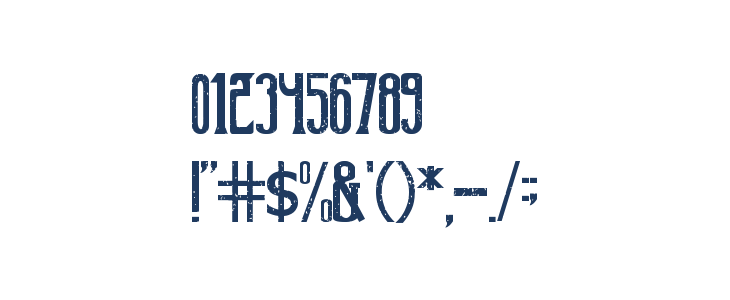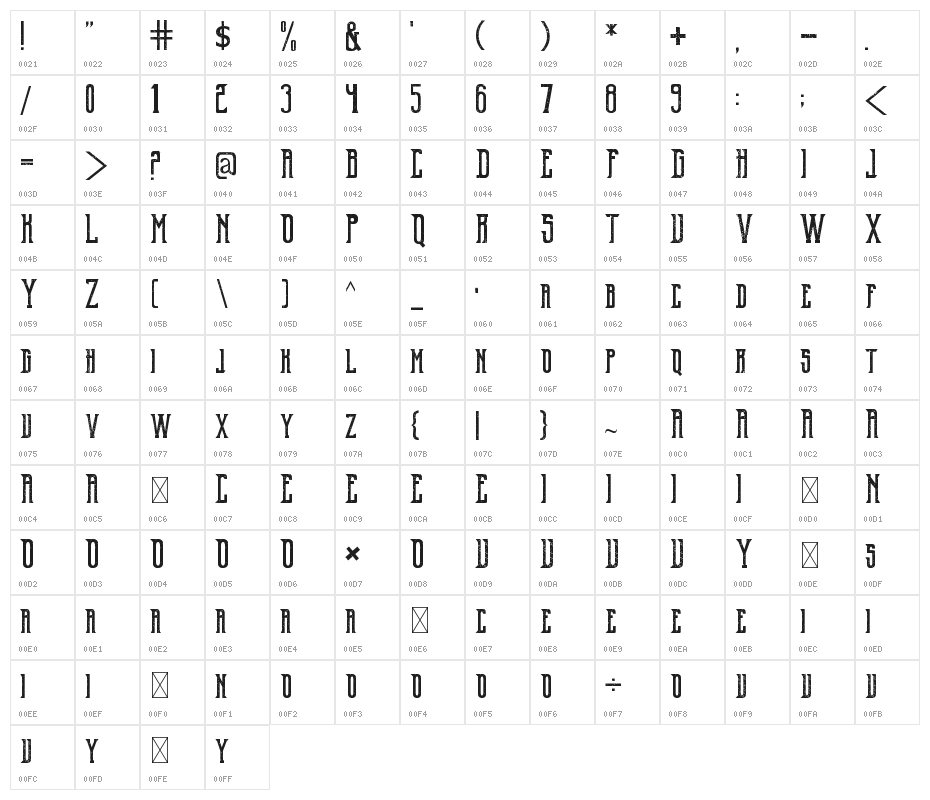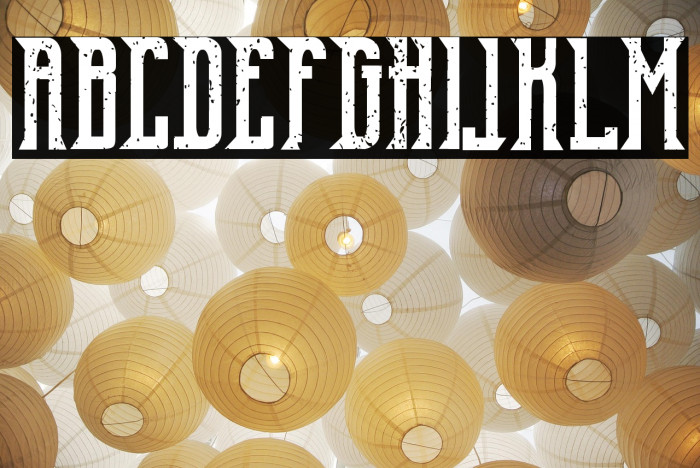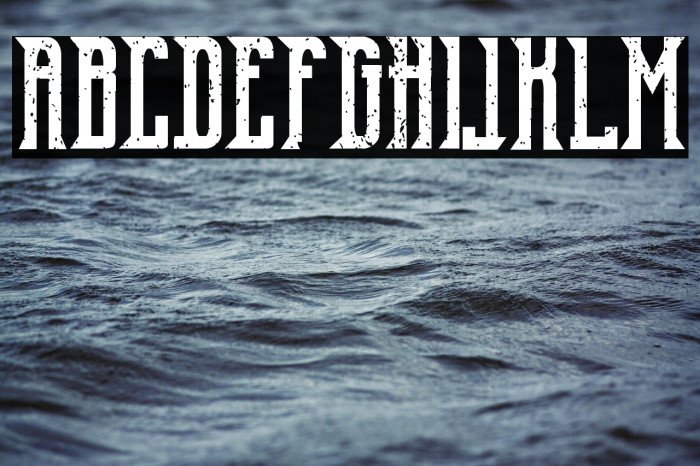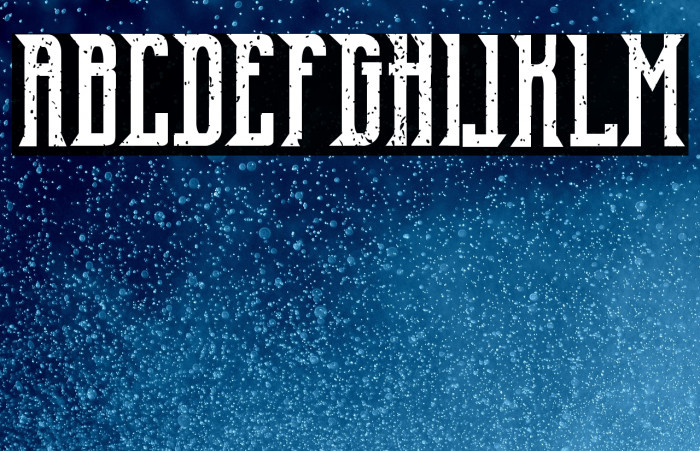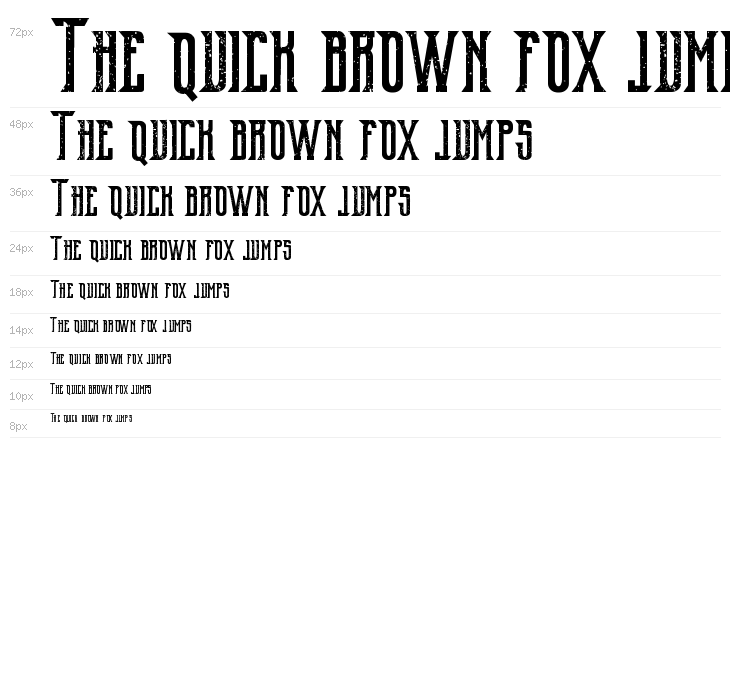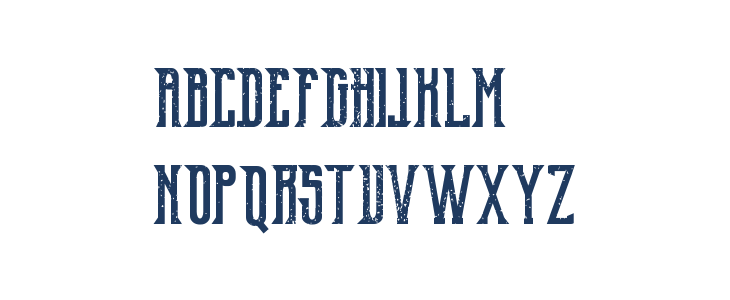
Old Excalibur Grunge Font
Old Excalibur Grunge Description
This font features a bold, distressed style with a grunge texture that gives it a rugged, vintage appearance. The uppercase letters are tall and narrow, with sharp, angular serifs that add to its bold character. The lowercase letters maintain the same distressed texture, creating a cohesive look throughout. Numbers and special characters are designed with the same grunge effect, making them stand out with a unique, worn-in look. This font is ideal for projects that require a strong, impactful visual presence with a touch of nostalgia.